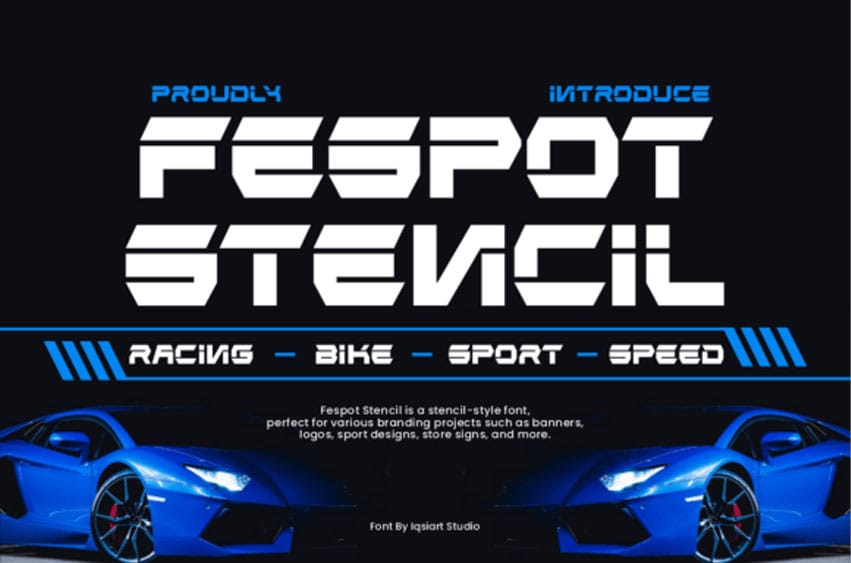
Fespot Stencil Font is an aggressive and futuristic display font designed to convey maximum speed and cutting-edge technology. Characterized by sharp angles, geometric forms, and strategically placed stencil cuts, this typeface is a perfect match for high-octane themes.
It is the ultimate choice for branding in racing, e-sports, action video games, high-tech product packaging, sport signage, and any project that needs a strong, dynamic, and powerful aesthetic.